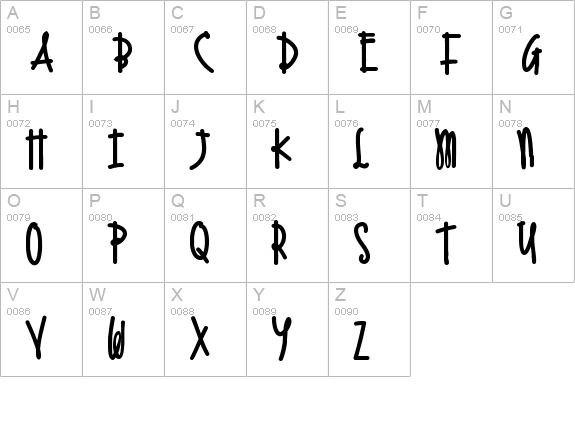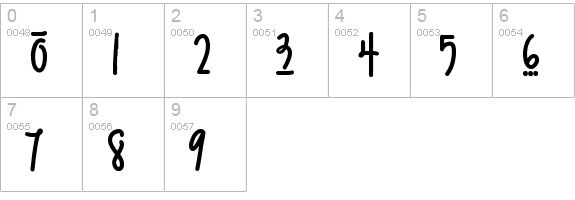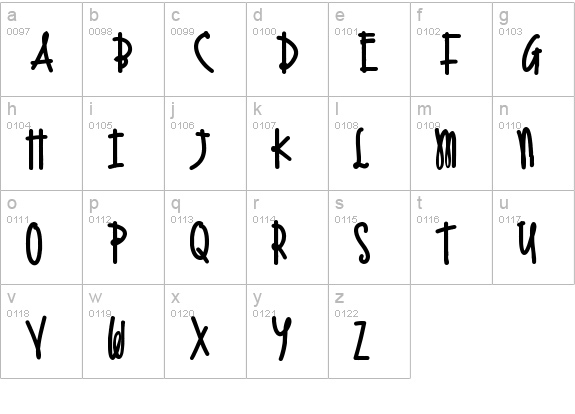
An Accidental Kiss Font Details
Introducing the captivating and whimsical An Accidental Kiss font! This delightful typeface exudes a playful charm with its unique curves and elegant strokes, making it perfect for adding a touch of magic to your projects. Whether you're designing greeting cards, invitations, or branding materials, this font is sure to make a memorable impression. What sets An Accidental Kiss font apart is its effortless blend of sophistication and fun, making it versatile for a wide range of design applications. From children's books to wedding stationery, this font will bring a touch of enchantment to any project. Best of all, An Accidental Kiss font is completely free to download at FontsMarket.com! So go ahead and add this delightful typeface to your collection today and let your creativity soar with its charming and whimsical style.